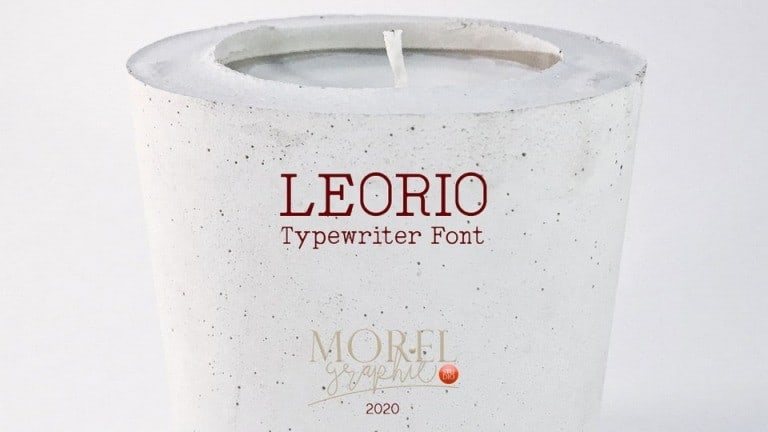
Leorio Serif Font
Introducing Leorio Serif Font is a classic mechanical typewriter font. It is an ode to the invention that shaped reading habits and the idea of legibility, the typewriter. This font combines old-fashioned charm with modern typographic sensibilities.
It can be used for business correspondence or in any work that requires an old-fashioned, personal look. Leorio is perfect natural logos and quotes, vintage effects. This font is free for personal and commercial use.